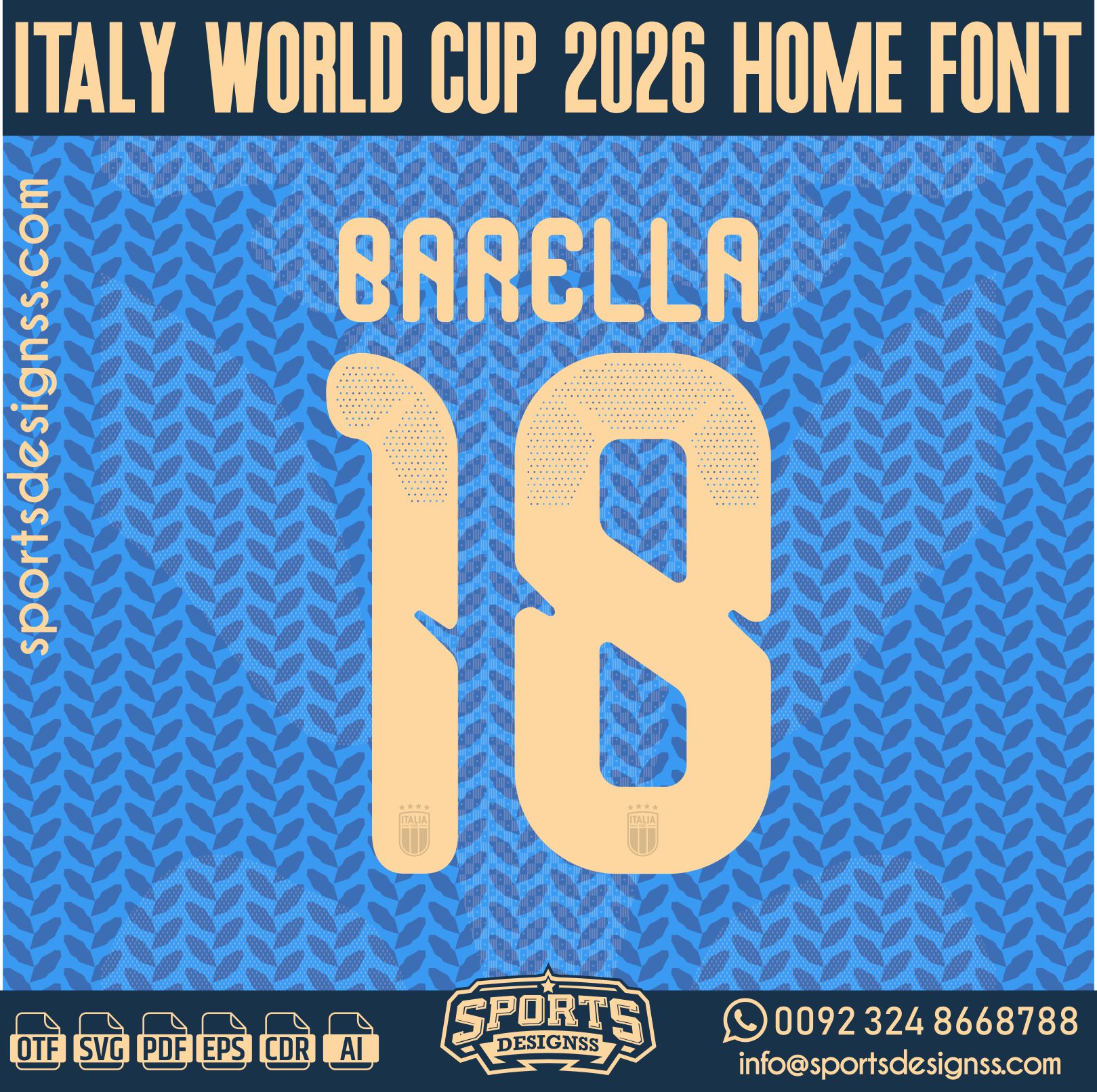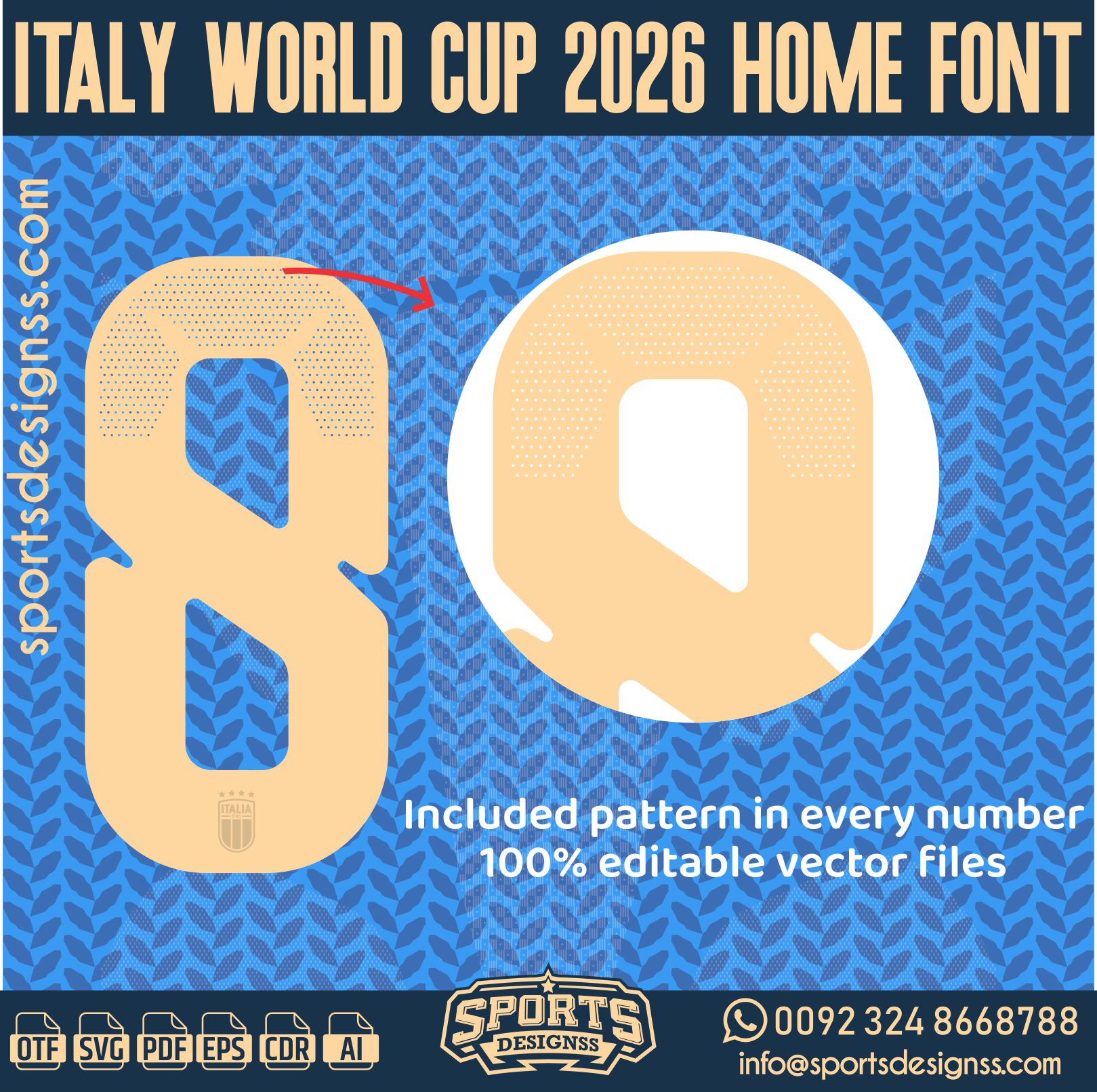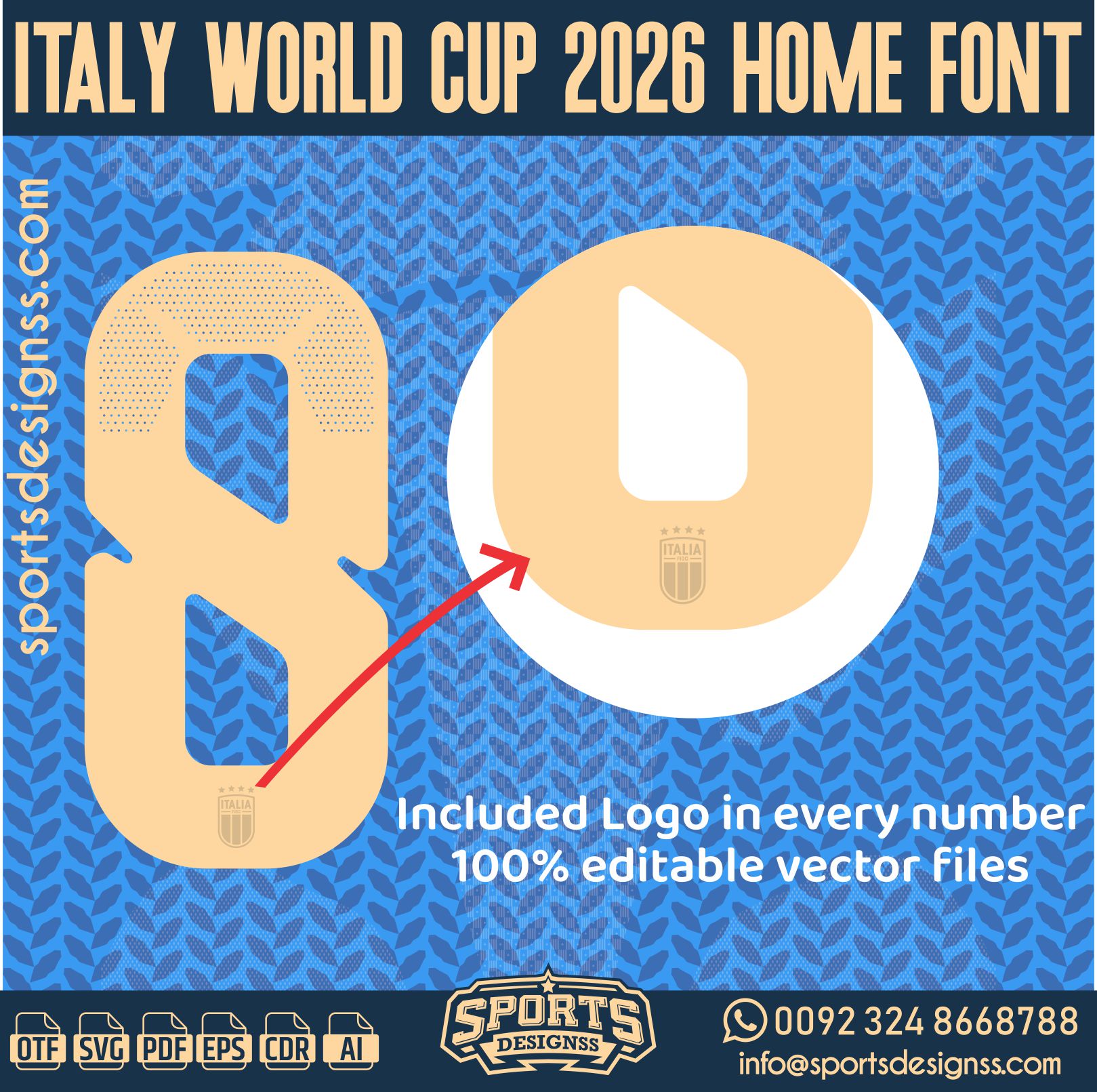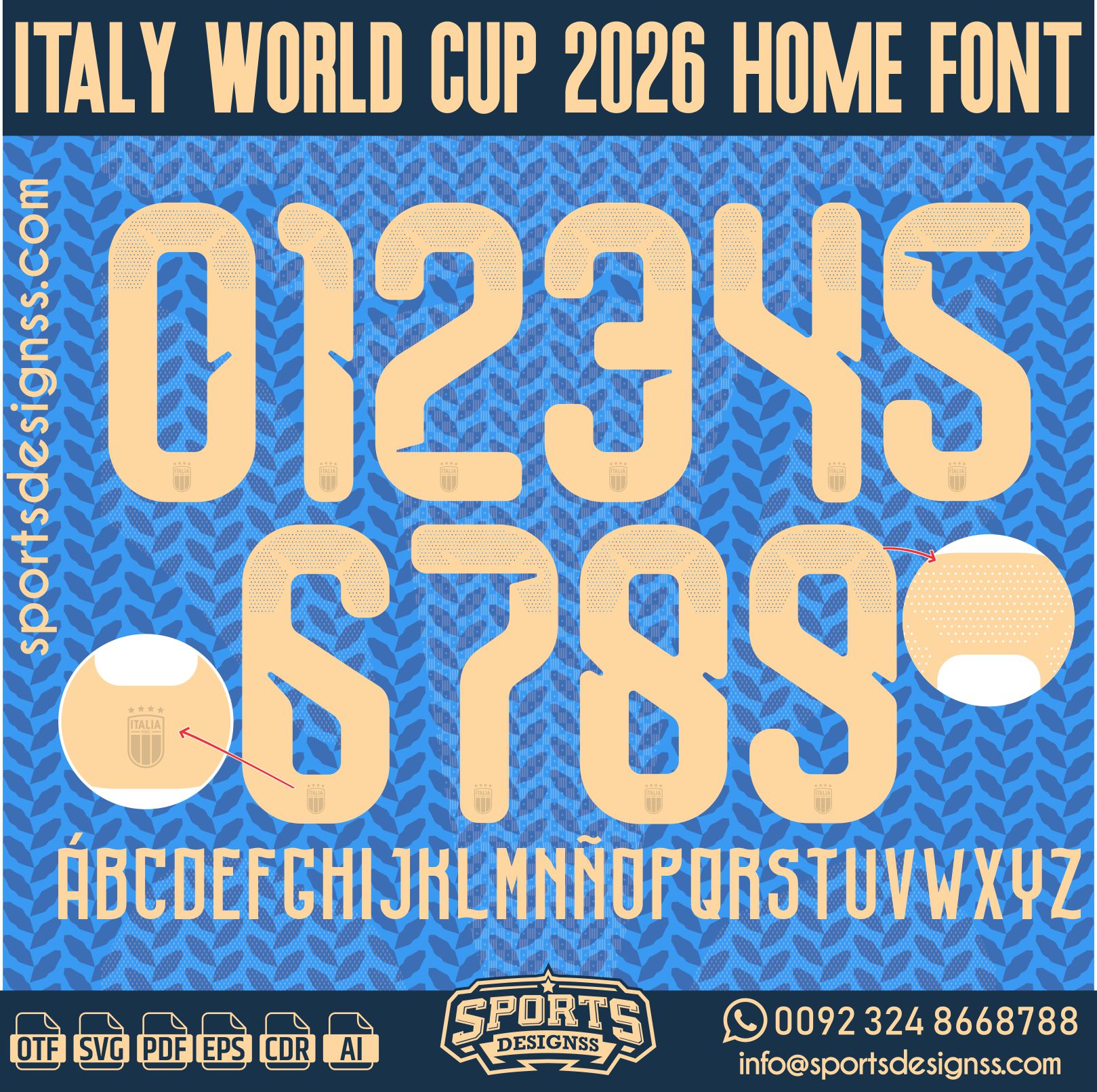
ITALY WORLD CUP 2026 HOME FONT by Sports Designss – a premium football jersey font inspired by modern kits.
Recreate authentic football jersey designs with the ITALY WORLD CUP 2026 HOME FONT, built for realistic, match-ready sports visuals.
Upgrade your designs with the ITALY WORLD CUP 2026 HOME FONT, a premium football jersey font inspired by modern professional sports aesthetics.